Font different in word
This font shows up differently in Word than it does in Adobe.  I wanted it to look like the font that's in Word but I don't know what is happening,  There are stark difference in some of the letters and it is harder to read in the version that is in adobe.
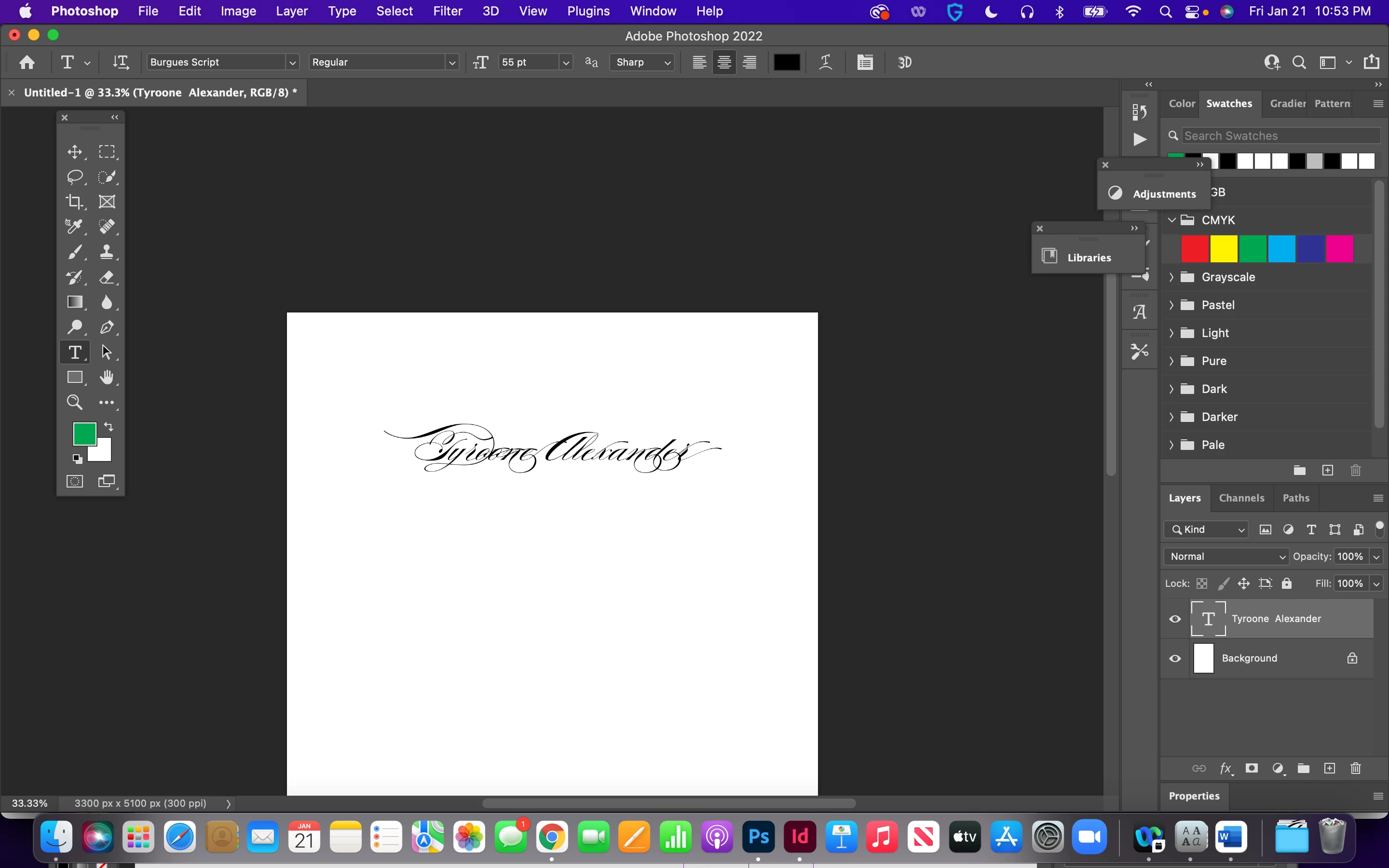
Agree with Lumigraphics. Unless you enable it, Word will not use alternate glyphs and ligatures while those options are on by default in PS. That alone could explain the difference in appearance.
I would look at the advanced type options, a decorative script font probably has lots of alternative characters, flourishes, etc.